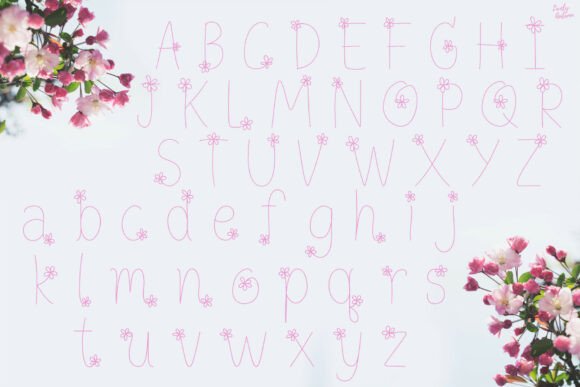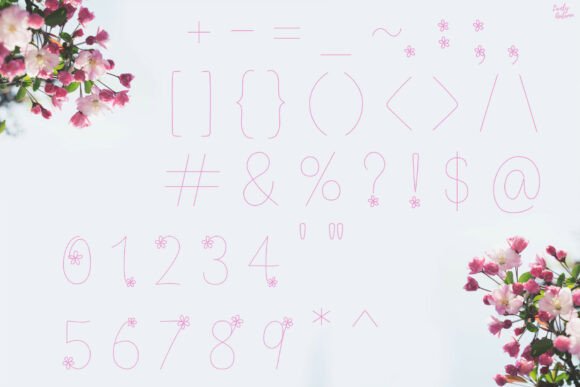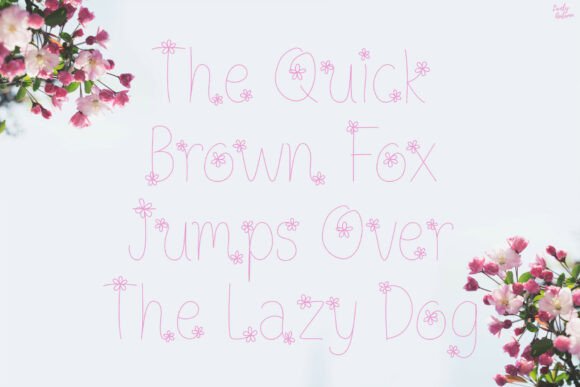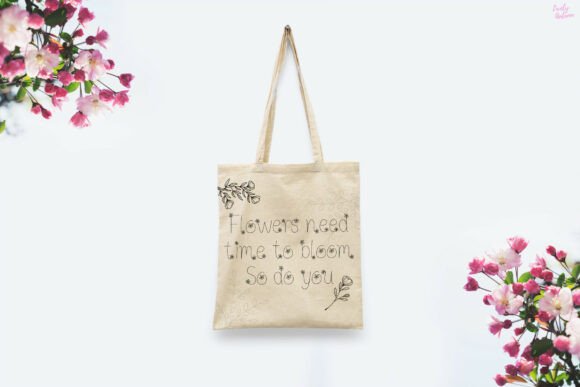
Introduction to Little Flora Font
As designers, we’ve all been there – staring at a blank canvas, waiting for inspiration to strike. For me, it was a simple yet elegant invitation design that sparked the idea to explore the world of unique fonts. And that’s when I stumbled upon the Little Flora Font – a whimsical, high-quality font that brings a touch of magic to any creative project.
With its intricate flower designs adorning each letter, Little Flora Font is the perfect design resource for anyone looking to add a touch of elegance to their work. Whether you’re working on a flower theme project or just want to add some visual interest to your social media graphics, this font is a valuable asset to have in your design toolkit.
Key Features of Little Flora Font
- High-quality design resource for creative projects, featuring delicate and intricate illustrations.
- Includes 6 unique font styles, each with its own distinct flair and aesthetic.
- Perfect for wedding invitations, baby shower decorations, and other special event designs, where a touch of elegance and whimsy is required.
Honest Review: Little Flora Font
As a designer, I’m always on the lookout for high-quality design resources to elevate my creative projects. Recently, I had the chance to work with the Little Flora Font, and I must say it’s been a delightful experience.
- ✨ Beautiful, hand-drawn illustrations that add a touch of whimsy to any design.
- ✨ High-quality fonts that are perfect for creating a professional and elegant look.
- ⚠️ Limited font styles, which might not be suitable for more complex design projects.
Overall, I’m impressed with the Little Flora Font. It’s a great design resource for simple, elegant designs, and the transparent background makes it easy to use. While it may have some limitations, it’s still a valuable addition to any designer’s toolkit. If you’re looking for a high-quality, creative font, I’d definitely recommend giving it a try.
The Little Flora Font is a high-quality, free design resource ideal for creative projects. This font features a transparent background, making it perfect for overlaying on images or using as a standalone text element.
The Little Flora Font is ideal for a variety of creative projects, including:
- Birthday party invitations and decorations.
- Food and product labeling.